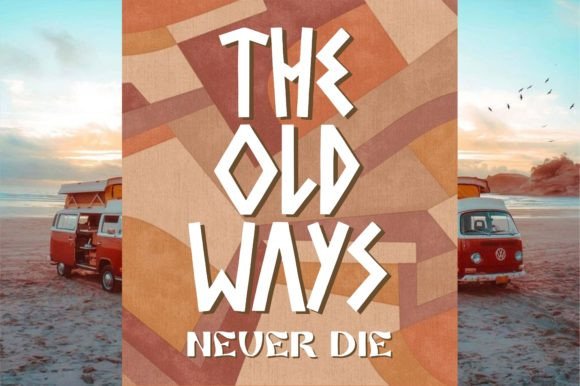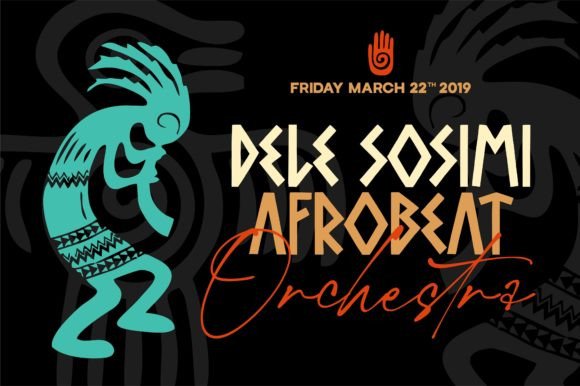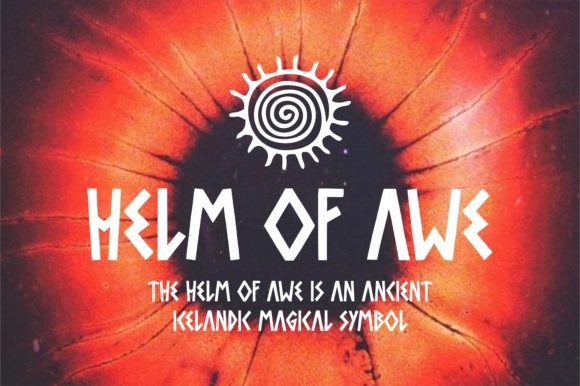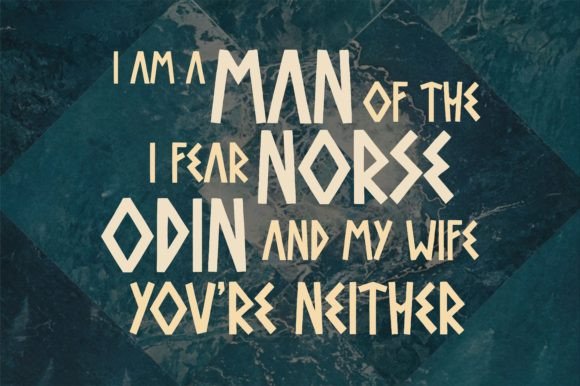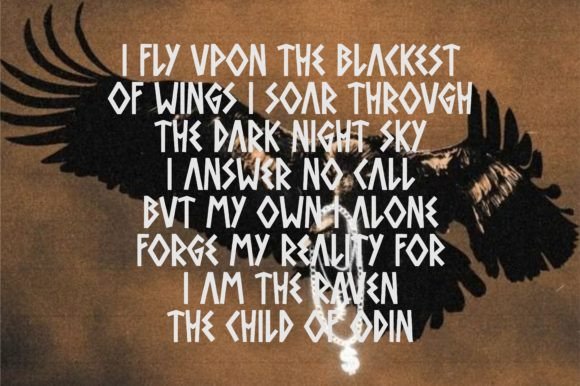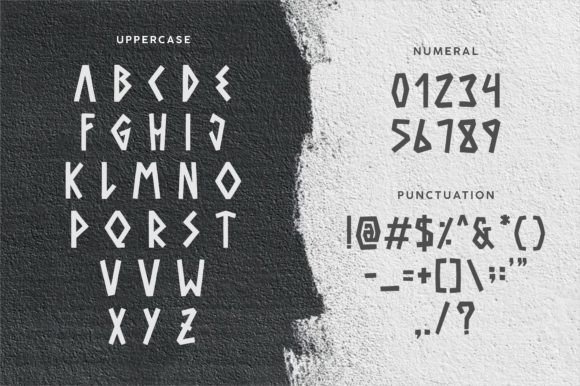
Introducing Guante Unique Display Font: The Epitome of Elegant Simplicity
In the realm of typography, the art of creating a lasting impression often hinges on striking the perfect balance between form and function. This is where Guante Unique Display Font comes into play, offering a refreshing blend of geometric simplicity and sophisticated elegance. Designed with the adage “less is more” in mind, Guante presents a compelling juxtaposition of basic geometric figures and lines, sculpted to breathe life into your visuals.
The Genesis of Guante: A Study in Minimalistic Artistry
Guante’s design philosophy revolves around the concept of minimalism. By stripping away the unnecessary and focusing on the core elements of form, the creators have managed to craft a font that speaks volumes through its simplicity. Each character in Guante is meticulously designed to showcase the beauty of streamlined typography, making it an ideal choice for designers and crafters looking to infuse their work with a touch of sophistication.
Key Features of Guante Unique Display Font
- Geometric Simplicity: At the heart of Guante’s design is a commitment to geometric simplicity. The font’s characters are composed of basic shapes and lines, creating a cohesive and harmonious visual experience.
- Elegance and Sophistication: Despite its minimalist approach, Guante exudes an undeniable air of elegance and sophistication. This makes it perfect for projects where making a refined statement is paramount.
- Versatility: Guante’s unique design allows it to be versatile, suitable for a wide range of applications from luxury branding to editorial design.
- Originality: With Guante, every keystroke brings a touch of originality to your work. Its distinctive style ensures that your designs stand out in a crowded creative landscape.
Applications of Guante Unique Display Font
Guante’s distinctive aesthetic appeal opens up a myriad of applications across various design disciplines. Here are a few areas where Guante truly shines:
- Branding and Logo Design: Guante’s bold simplicity makes it an excellent choice for logos and brand identities that aim to convey a sense of elegance and modernity.
- Editorial Design: For magazines, newspapers, and digital publications, Guante can be used to create compelling headlines and titles that capture the reader’s attention.
- Packaging Design: The font’s unique character can elevate product packaging, making it more visually appealing and distinctive on store shelves.
- Web Design: Guante can also be effectively used in web design to create stunning headings and titles that enhance the overall user experience.
Why Choose Guante Unique Display Font?
In a world where design trends are constantly evolving, Guante Unique Display Font stands out for its timeless appeal. Here are a few reasons why Guante should be your go-to font for your next project:
- Unique Aesthetic: Guante offers a fresh perspective on minimalist design, providing a unique aesthetic that can set your work apart.
- High Versatility: Its geometric simplicity and elegant lines make Guante highly versatile, adaptable to various design contexts.
- Easy to Read: Despite its stylized appearance, Guante maintains a high level of readability, ensuring your message is communicated effectively.
Guante Unique Display Font embodies the perfect blend of simplicity and sophistication, offering designers and crafters a powerful tool to elevate their visuals. Its geometric simplicity, coupled with an undeniable elegance, makes Guante an excellent addition to any design project. Whether you’re aiming to create a bold statement or simply looking for a font that exudes class and refinement, Guante is sure to exceed your expectations. Unmask the bold simplicity of Guante Unique Display Font and discover a new dimension of typographic excellence.